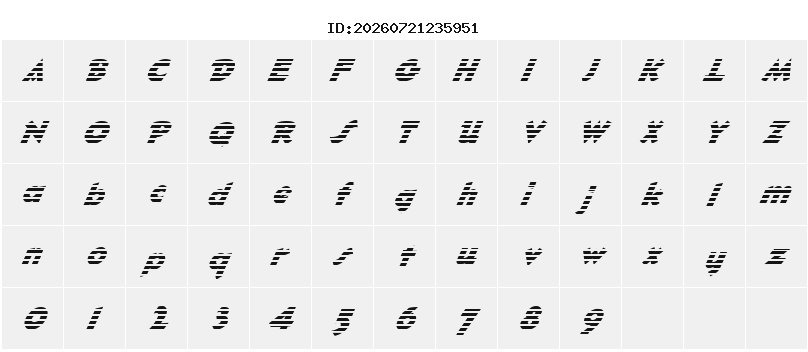
• Font Name: FZ JAZZY 32 STRIPED ITALIC
• Font ID: FZ JAZZY 32 STRIPED ITALIC
• Full Font Name: FZ JAZZY 32 STRIPED ITALIC
• PostScript Name: FZ-JAZZY32STRIPEDITALIC
• Character Count: 177
About FZ JAZZY 32 STRIPED ITALIC.ttf
FZ JAZZY 32 STRIPED ITALIC.ttf is a modern, elegant sans-serif font designed for ultimate readability and visual harmony. Perfect for branding, headlines, web design, and print materials.